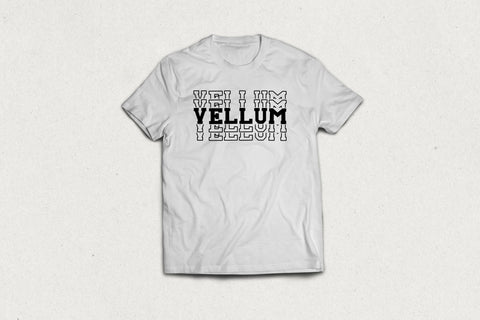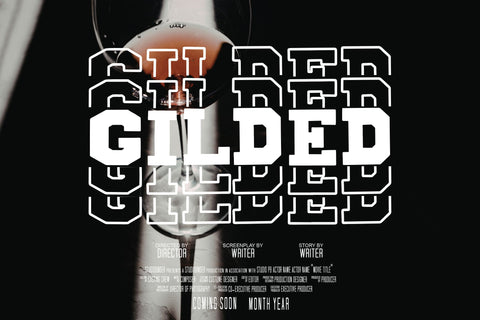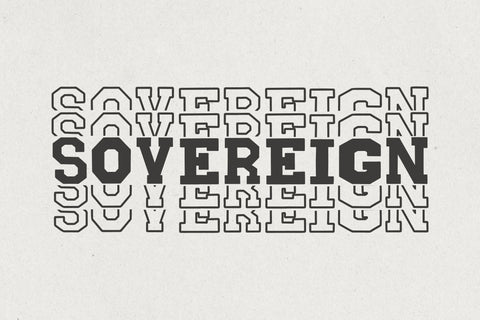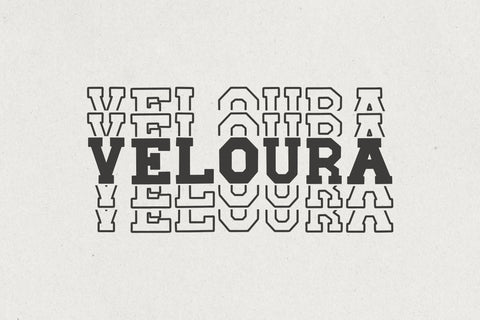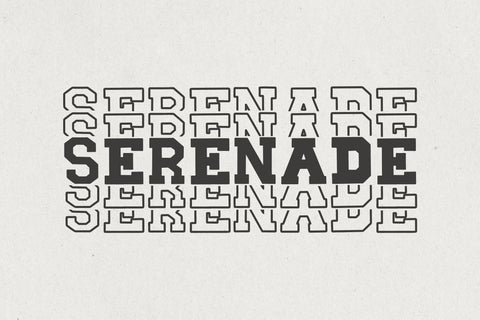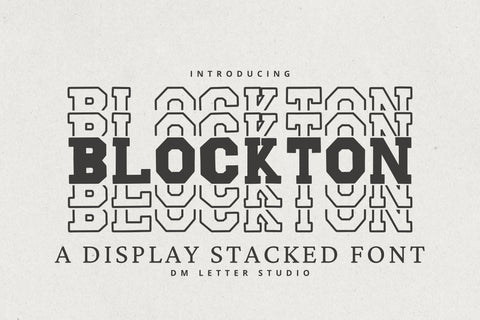
Blockton Stacked
Meet Blockton Stacked, the Bold Stacked Display Font
Blockton Stacked is a bold block display font with a stacked, layered construction that adds instant depth and impact to your designs. It keeps the strong geometry of Blockton while delivering a dimensional look that feels modern, playful, and eye-catching. Because the stacked shapes are clean and well aligned, the font stays readable at any size. Use it for logos, posters, packaging, apparel, signage, stickers, and statement branding. As a result, your designs feel bold, dynamic, and built to stand out.
Fast layouts with the Blockton Stacked Font
Start with short, punchy words so the stacked detail stays clear. After that, add supporting text in a clean sans or light serif font for contrast. Because Blockton Stacked has strong geometry, it works especially well in badges, stacked compositions, and boxed layouts. In addition, it shines on posters, labels, apparel graphics, and modern signage. Finally, try color pairs like black & gray, red & cream, navy & ivory, or bold duotones to push the layered look.
Creative uses and quick wins
• Logo marks and bold brand headlines
• Posters, flyers, and event graphics
• Packaging, labels, and sticker designs
• T-shirts, hoodies, hats, and merch
Design tips for Blockton Stacked Font
Keep words short so the stacked layers remain readable. Also, avoid busy backgrounds to let the depth stand out. For extra impact, adjust layer colors slightly for contrast. Finally, export at 300 DPI for print and at 2× size for web so details stay crisp.